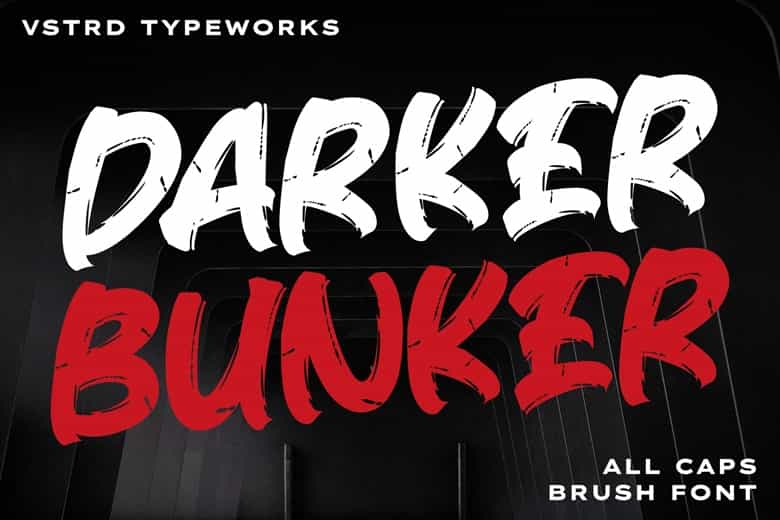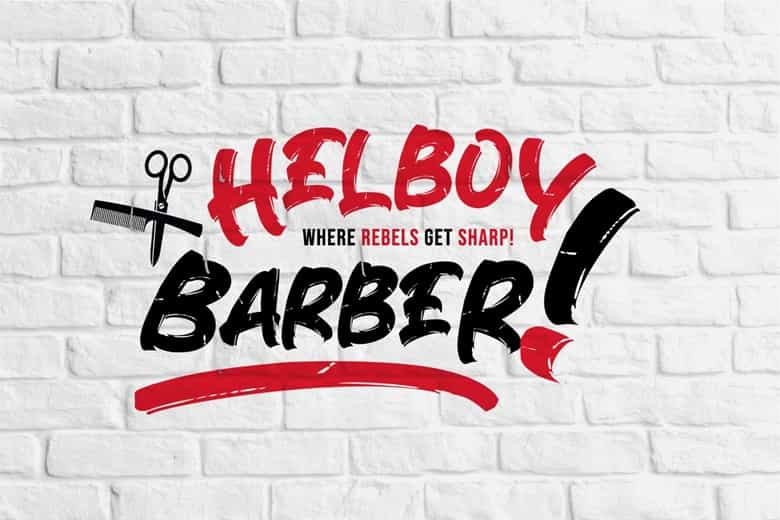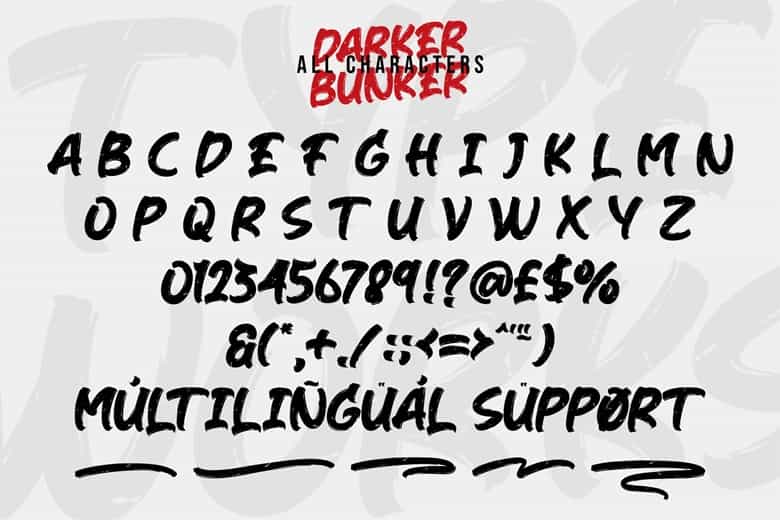
Add some attitude to your design using DARKER BUNKER – a realistic brush font made from actual natural hand brush strokes. This font strikes up an organic type of feel, that tends to be well**suited for projects that inherently need some kind of rebellious feel to them.